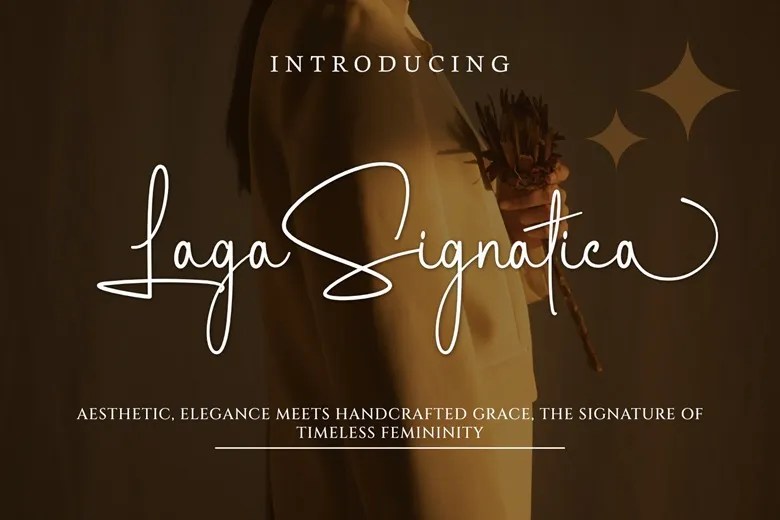
Laga Signatica Font
Laga Signatica is a superb handwritten script font that combines sophistication with a touch of class. Its sleek, fluid strokes and contemporary design exude grace, elegance, and a timeless appeal, making it perfect for projects that require a personal and refined touch. Ideal for creating mascots, logos, invitations, company branding, and other artistic designs, this font brings a unique charm to any work.
With its delicate yet strong structure, Laga Signatica elevates your designs, offering a more personal and graceful feel to your words. Whether you’re working on a logo or a special event invitation, this font adds the perfect balance of elegance and strength.